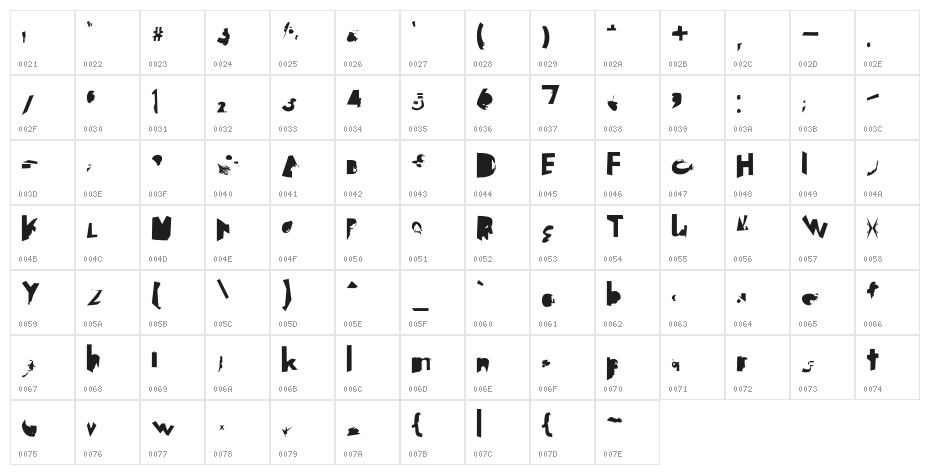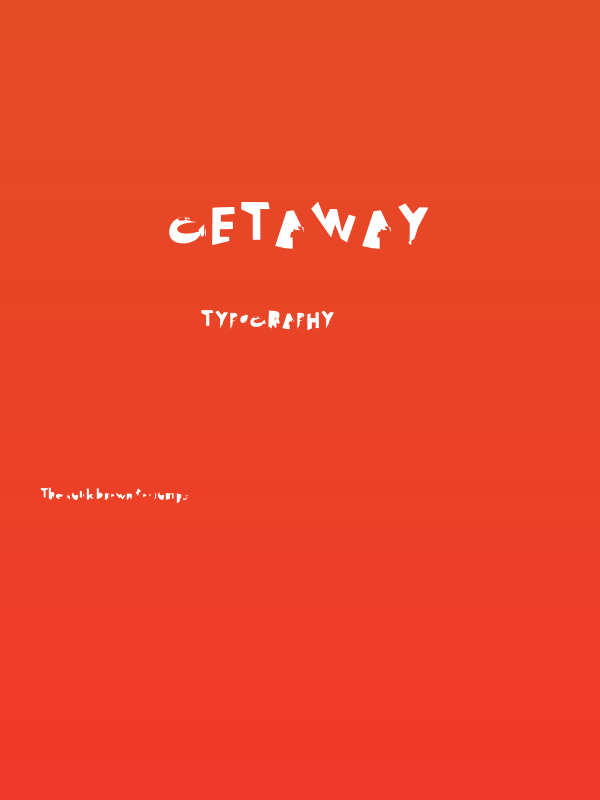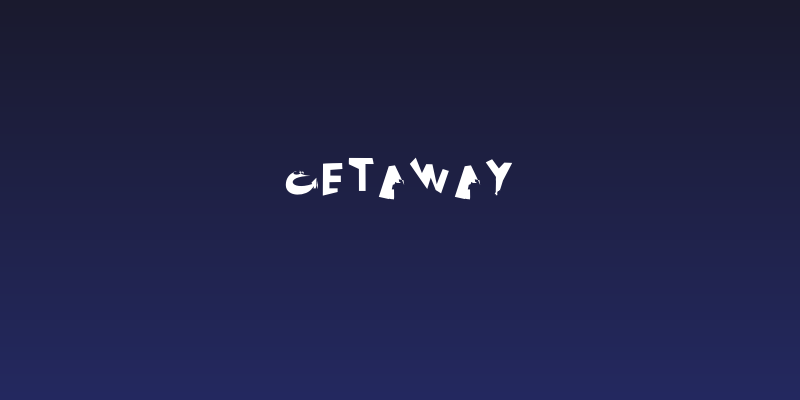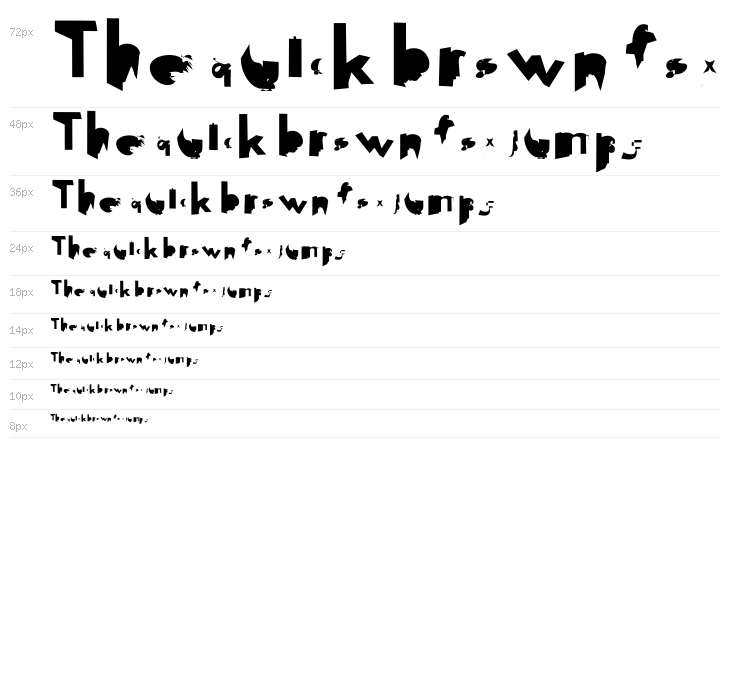
Getaway Font
This font features a highly decorative and abstract style, characterized by its fragmented and distorted letterforms. Each character appears as if it has been partially erased or shattered, creating a sense of movement and chaos. The uppercase and lowercase letters maintain a consistent level of distortion, making the font suitable for artistic and unconventional designs. The numbers and special characters follow the same fragmented aesthetic, ensuring a cohesive look across all glyphs. This font's unique appearance makes it stand out, ideal for projects that require a bold and creative touch.
| Proposed Projects | Ideal for album covers, posters, modern art projects, and edgy branding. |